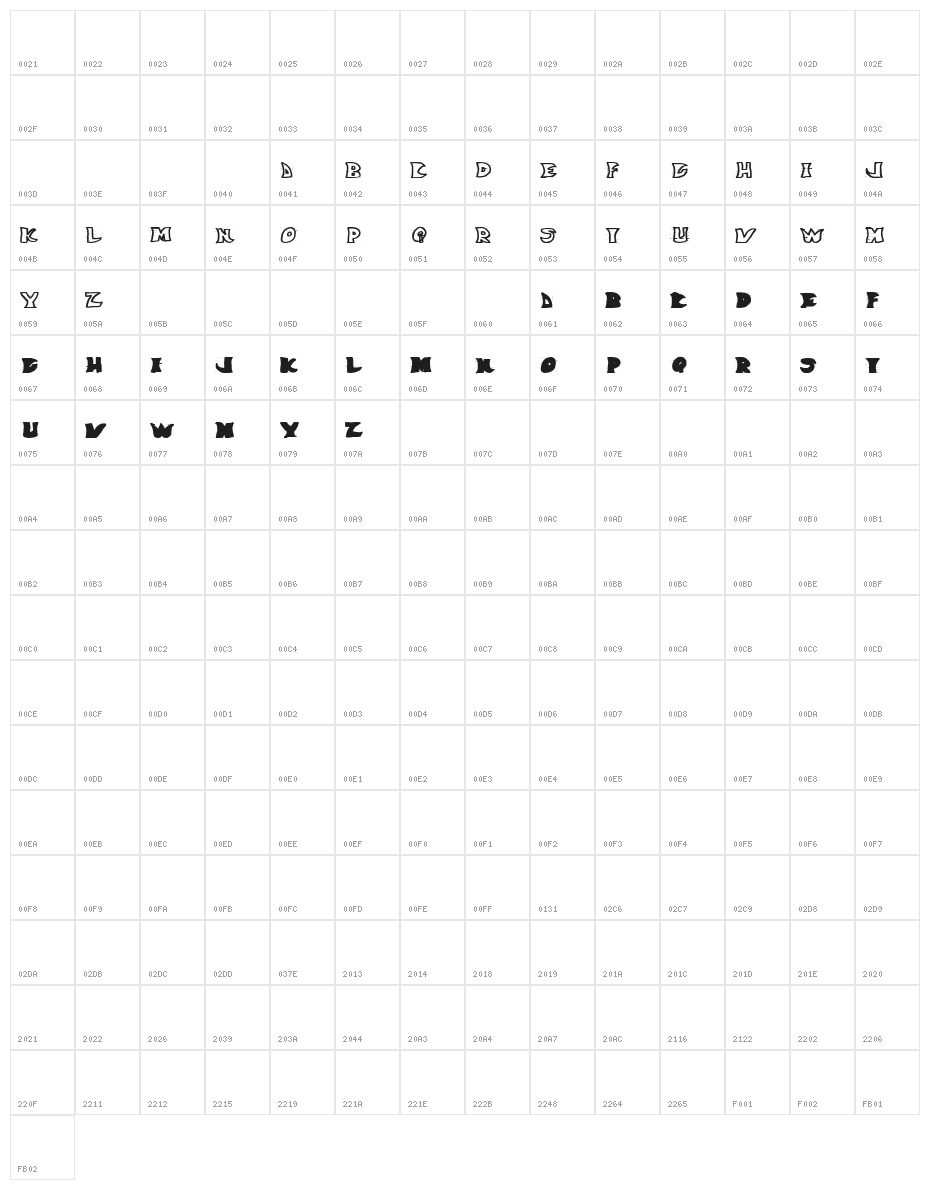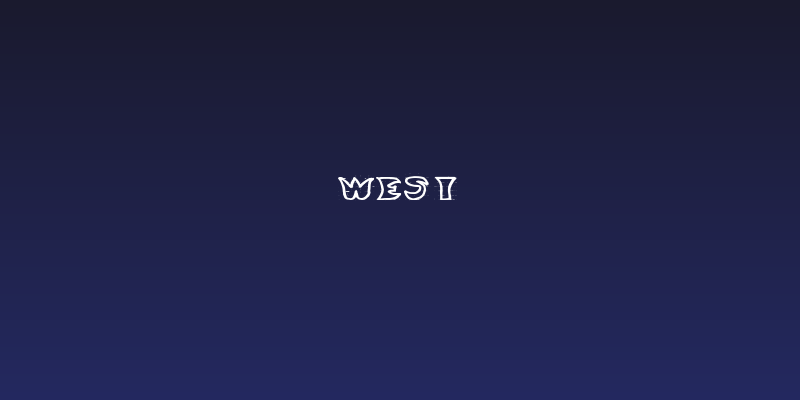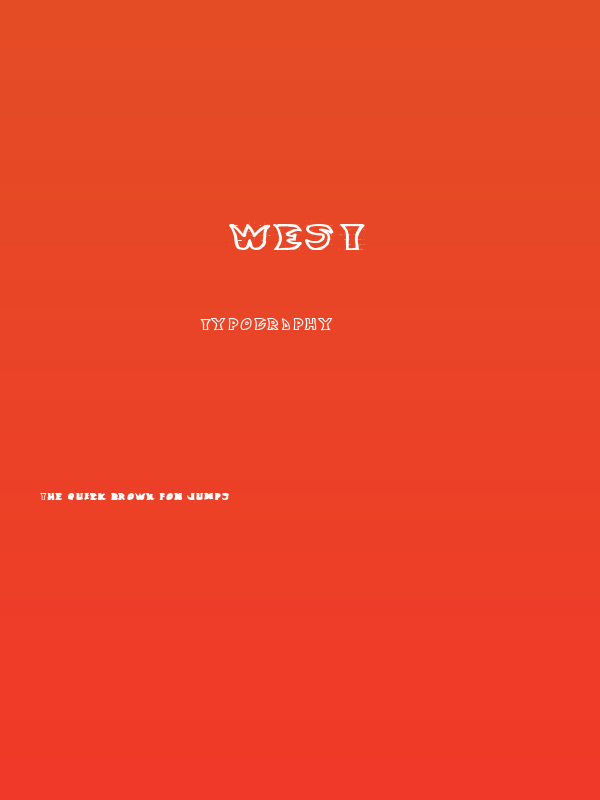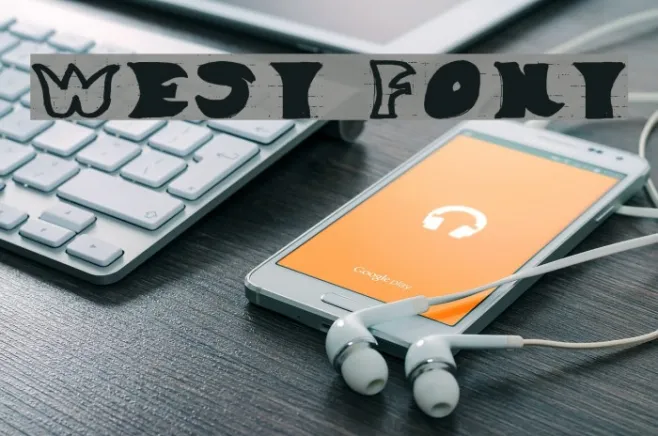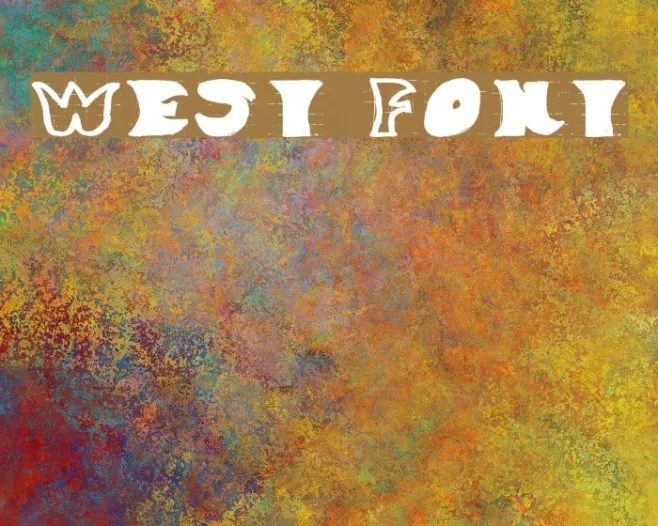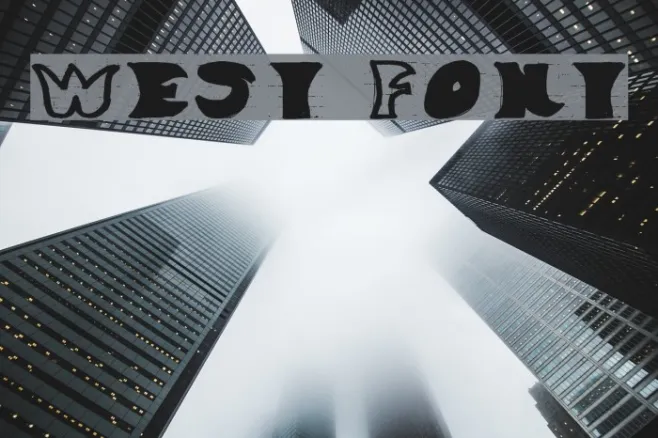
West Font
West Description
This font features a bold and dynamic style with a playful, cartoonish appearance. The letters are characterized by their irregular, wavy outlines, giving them a sense of movement and energy. The uppercase letters are particularly striking, with exaggerated curves and angles that create a whimsical and eye-catching effect. The font's unique design makes it ideal for creative and informal projects, where a touch of fun and personality is desired. Its boldness ensures that it stands out, making it suitable for headlines and titles. The font's overall style is decorative, with a modern twist that appeals to a wide range of audiences. The characters are well-spaced, allowing for easy readability despite their unconventional shapes.
| Proposed Projects | Ideal for children's books, comic strips, playful branding, and creative posters. |